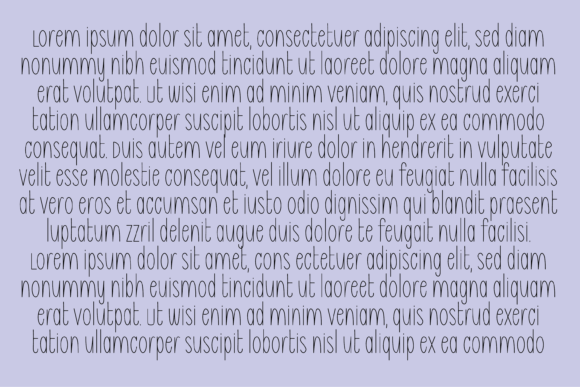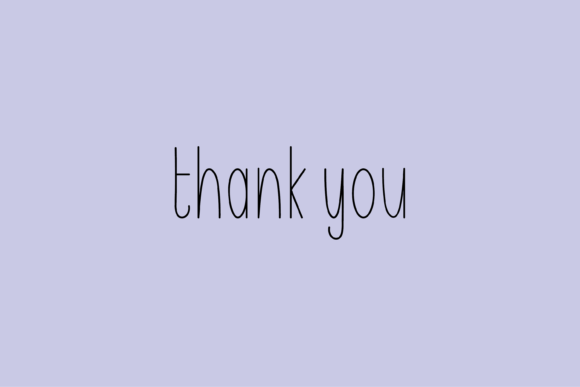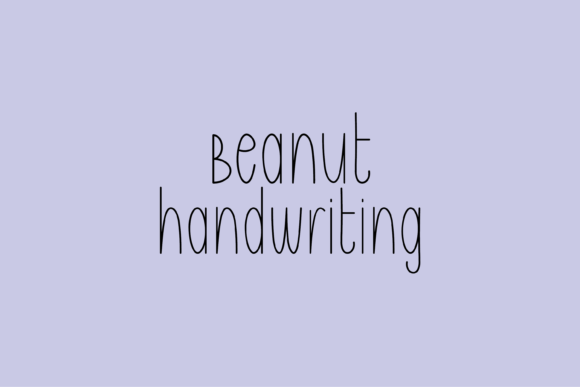
Introducing Beanut Font: The Perfect Handwritten Companion for Your Design Projects
In the world of typography, a good font can make all the difference in elevating your design projects from ordinary to extraordinary. If you’re on the hunt for a typeface that exudes warmth, friendliness, and a dash of whimsy, look no further than Beanut Font. This simple yet charming handwritten font is designed to bring a smile to your audience’s faces and a touch of personality to your creations.
The Charm of Beanut Font
Beanut is a delightful, hand-crafted font that embodies the essence of approachability and playfulness. Its letters are carefully designed to have a slightly quirky feel, making it perfect for designers and crafters who want to infuse their projects with a bit of character. Whether you’re working on a logo, a wedding invitation, a quote, an advertisement, or any other design piece, Beanut Font is sure to add that extra special something that sets your work apart.
One of the standout features of Beanut Font is its incredible versatility. This typeface isn’t limited to just one or two specific uses; rather, it’s suitable for a wide range of applications. Here are just a few ideas to get you started:
- Logos: Create a memorable brand identity with a logo that’s both friendly and professional.
- Wedding Invitations: Add a touch of romance and whimsy to your wedding stationery.
- Quotes: Make inspirational quotes even more impactful with a font that’s as beautiful as it is meaningful.
- Advertisements: Stand out from the crowd with ads that showcase your brand’s personality.
- Print and Magazines: Bring your editorial designs to life with a font that’s easy to read and visually appealing.
Why Choose Beanut Font?
With so many fonts available, it can be challenging to choose the right one for your project. Here are a few reasons why Beanut Font should be at the top of your list:
- Unique yet Readable: Beanut strikes the perfect balance between uniqueness and readability. Its quirky charm doesn’t compromise its legibility, making it ideal for both digital and print projects.
- Easy to Pair: This font is surprisingly versatile when it comes to pairing. It works beautifully with both serif and sans serif fonts, giving you endless possibilities for creative combinations.
- Constantly Inspiring: The friendly and whimsical nature of Beanut Font can spark creativity and inspire new ideas. It’s the perfect companion for designers looking to explore different styles and themes.
| Font Name | Beanut Font |
| Author | Woracado |
Beanut Font is more than just a typeface; it’s a design companion that can help bring your creative visions to life. With its simple yet friendly appearance, whimsical charm, and versatility, it’s an excellent choice for designers and crafters across various disciplines. Whether you’re a seasoned professional or just starting out, Beanut Font invites you to explore new design possibilities and make your mark with confidence.